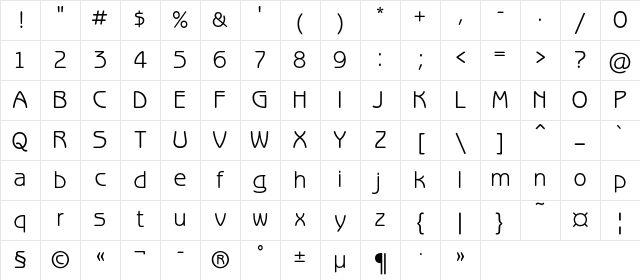
Complete BenguiatGothicC Regular glyph index. Displaying only characters natively supported by BenguiatGothicC Regular font.
BenguiatGothicC takes a clean, functional approach - its unadorned letterforms prioritise legibility and work reliably across screen and print environments.
Font Pairing: Works well alongside a characterful serif or display font that can carry the expressive load while BenguiatGothicC handles the functional copy.
Pro Tip: Use BenguiatGothicC for UI labels, navigation, and short-form body copy where clean legibility is the priority.